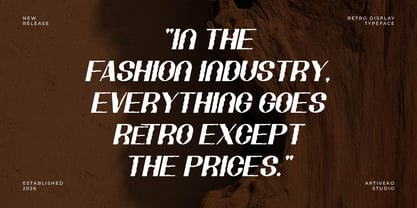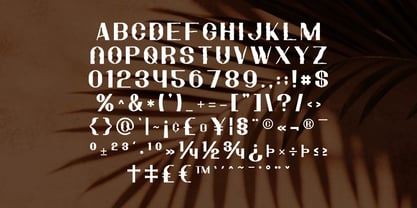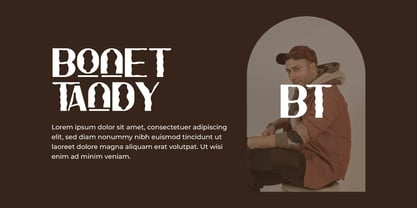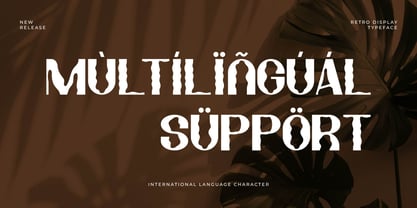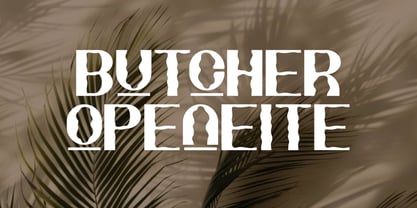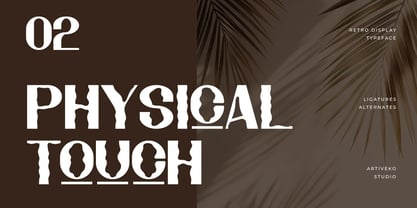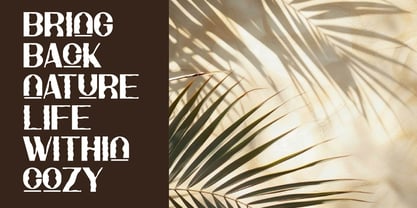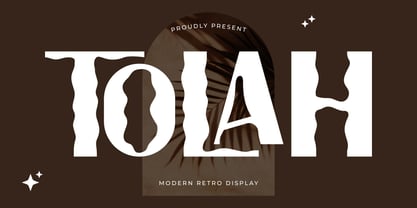
Tolah
by Artiveko
The Tolah Font Family was designed by Iwan Alwan and published by Artiveko. Tolah contains 2 styles and family package options. More about this family
Bold nostalgia never goes out of style.
Tolah is a retro display font inspired by vintage signage, classic advertising, and the golden era of bold typography. With distinctive curves, strong silhouettes, and timeless retro character, Tolah transforms every headline into a memorable visual statement.
Designed for retro branding, vintage logos, café identities, restaurant menus, product packaging, apparel graphics, merchandise, concert posters, album artwork, and editorial headlines, Tolah brings authentic old-school personality while remaining versatile for contemporary creative projects.
Whether you're creating a nostalgic coffee brand, a heritage clothing label, or a bold festival poster, Tolah delivers the warmth, confidence, and handcrafted spirit that make retro design feel timeless.
Tolah isn't just a display font—it's a celebration of vintage culture reimagined for modern creators.